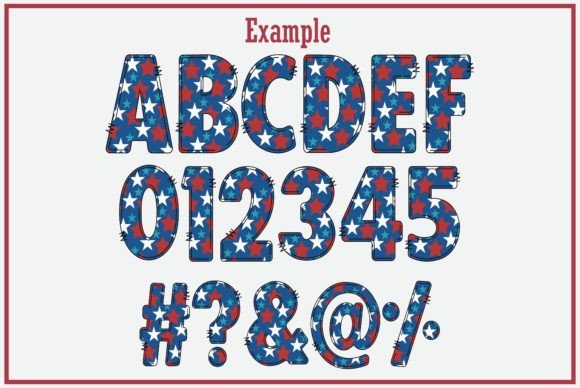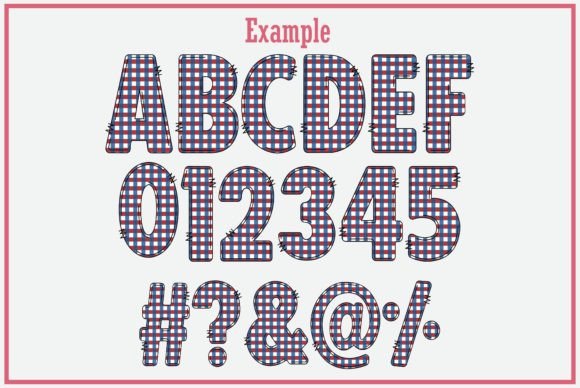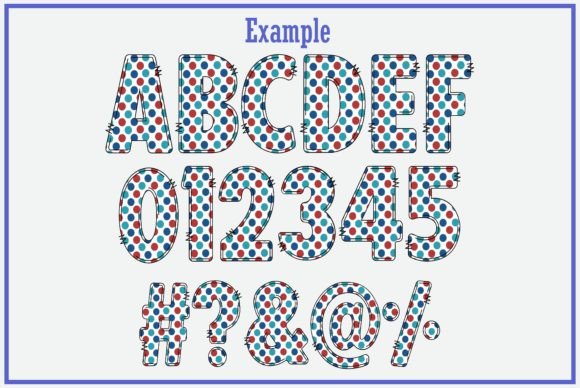
Memorial Font
About the Memorial Font
Elevate your designs with Memorial Font, a font that combines sophistication with readability. Memorial is a decorative color font inspired by the United States flag.
This font is suitable for any kind of project related to the USA, such as patriot day, 4th July Independence Day, memorial day, and many more.
Memorial’s strong, bold forms make it ideal for headlines, logos, and short, impactful text on posters or commemorative materials. Its decorative nature, however, makes it less suitable for body copy or UI elements where readability is paramount. Avoid using it for lengthy text blocks.
The font’s patriotic aesthetic pairs well with clean sans-serif fonts like Montserrat or Open Sans for a balanced contrast. For a more traditional feel, consider pairing it with a classic serif like Garamond or Didot, allowing Memorial to act as a striking focal point. Scripts like Great Vibes could add a touch of elegance to related designs, but should be used sparingly.
Memorial projects a serious, respectful, and nationalistic personality. It’s best suited for brands or projects aiming for a strong, patriotic, and memorable image. Think memorial services, historical societies, or organizations with a strong connection to American identity.